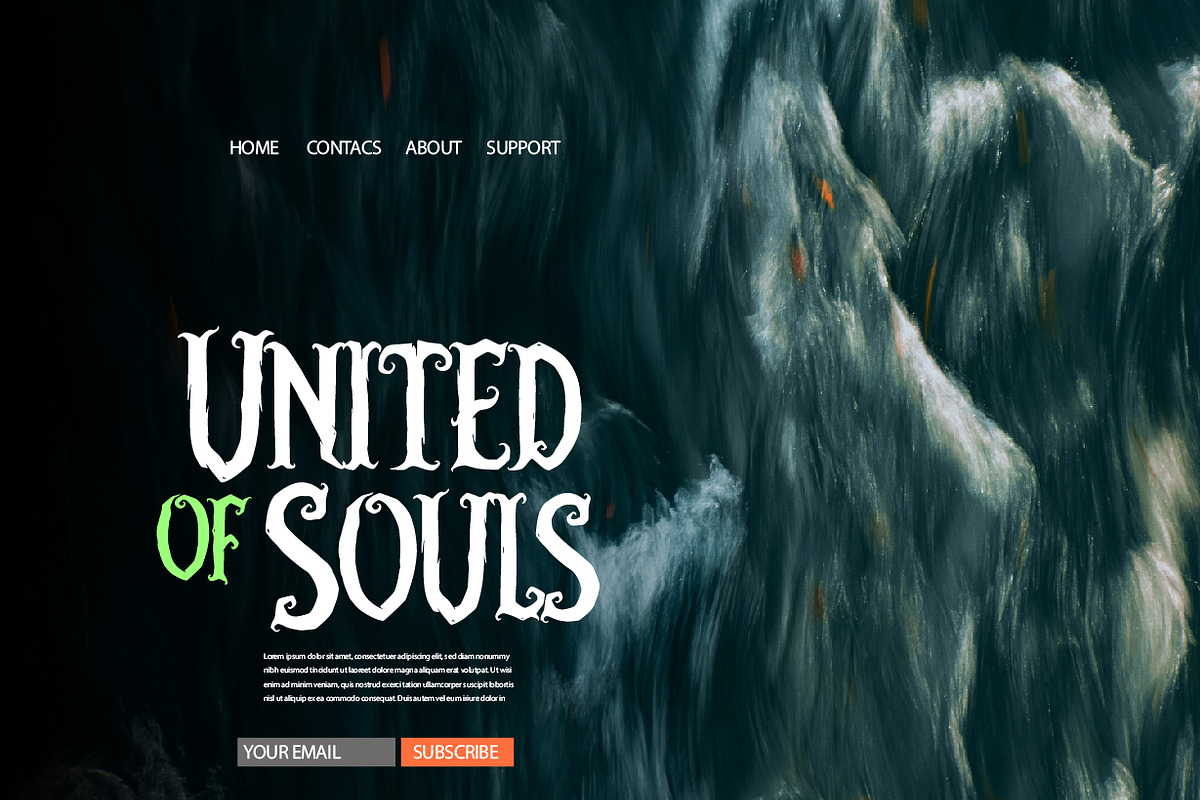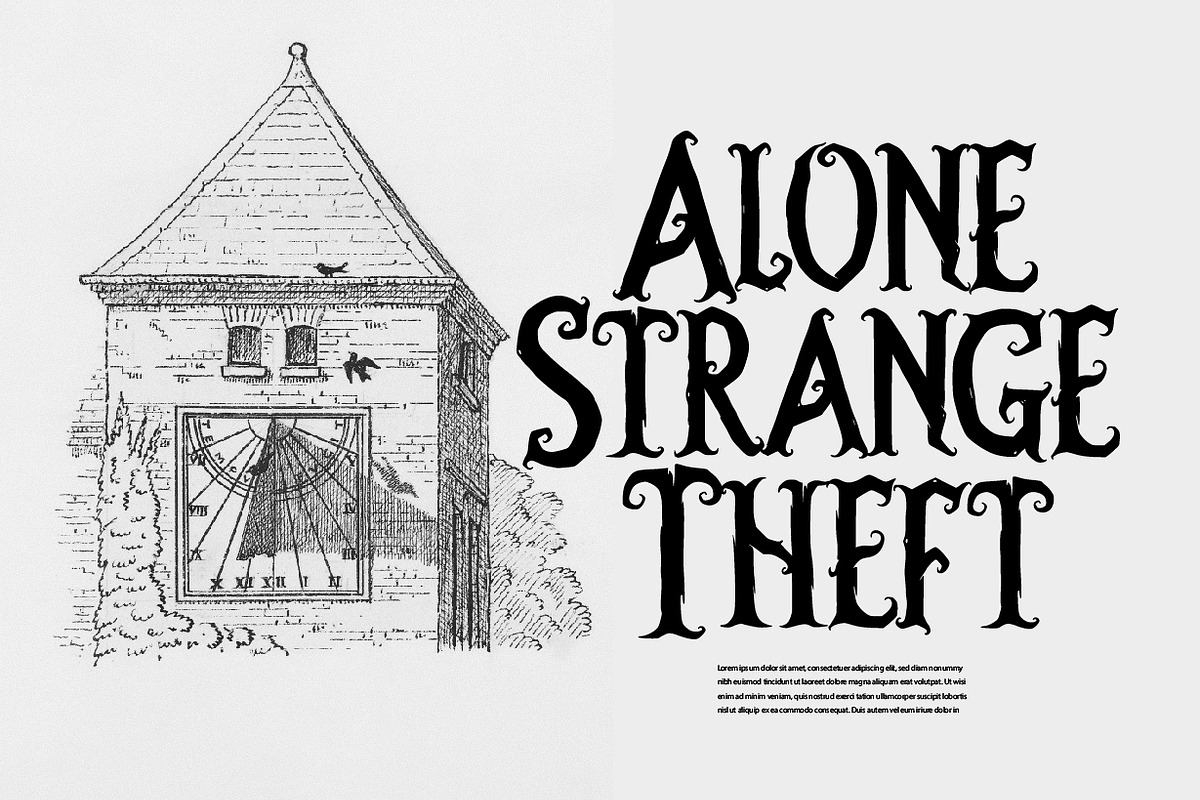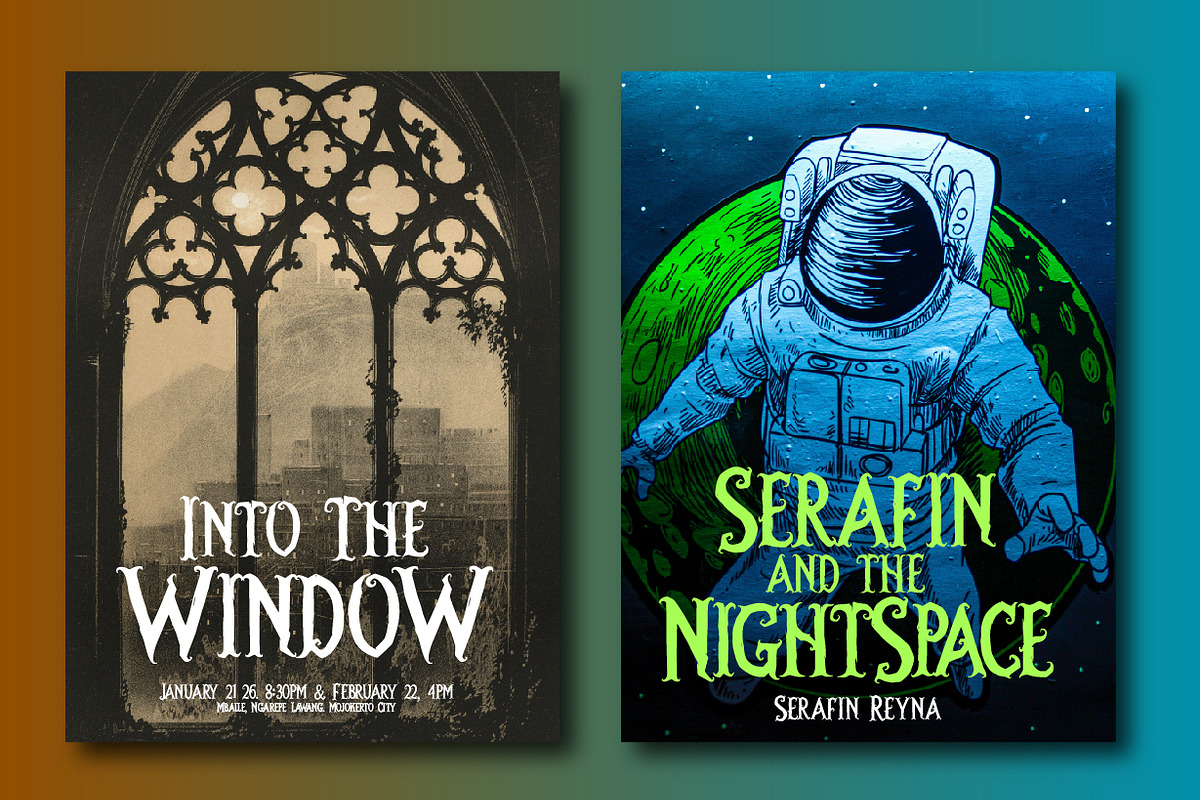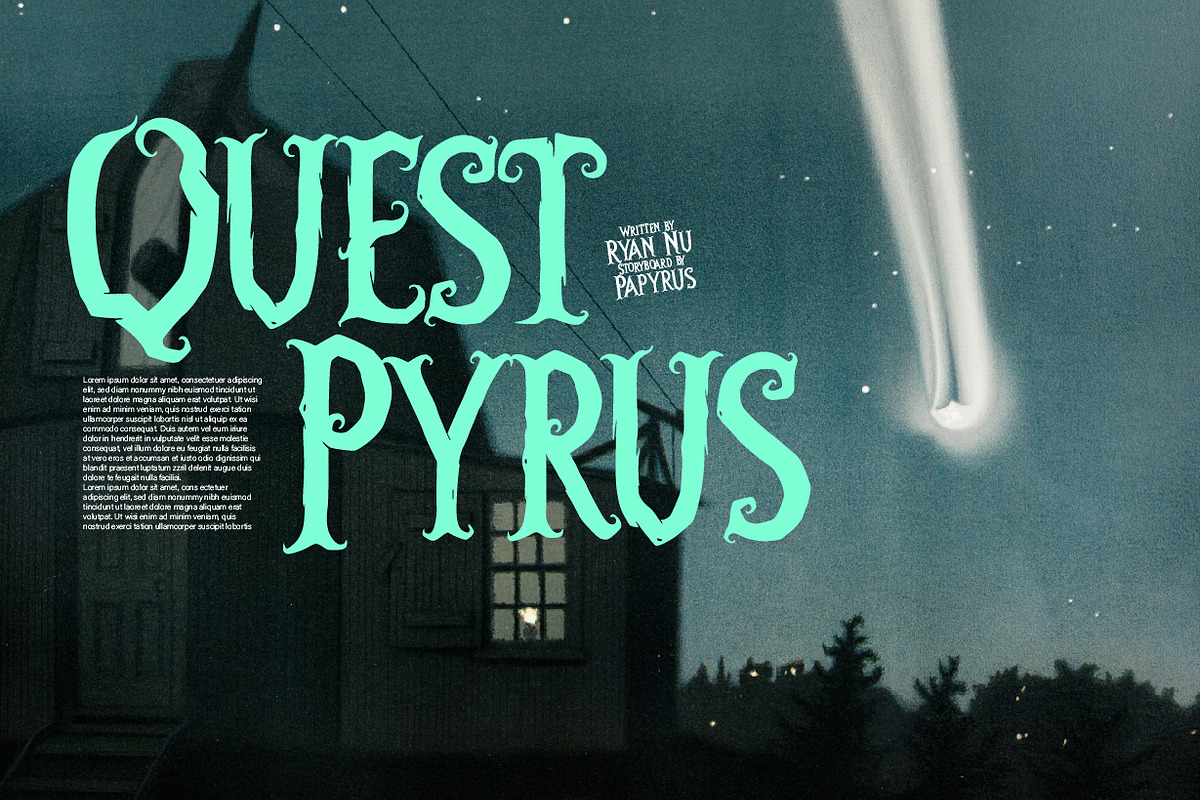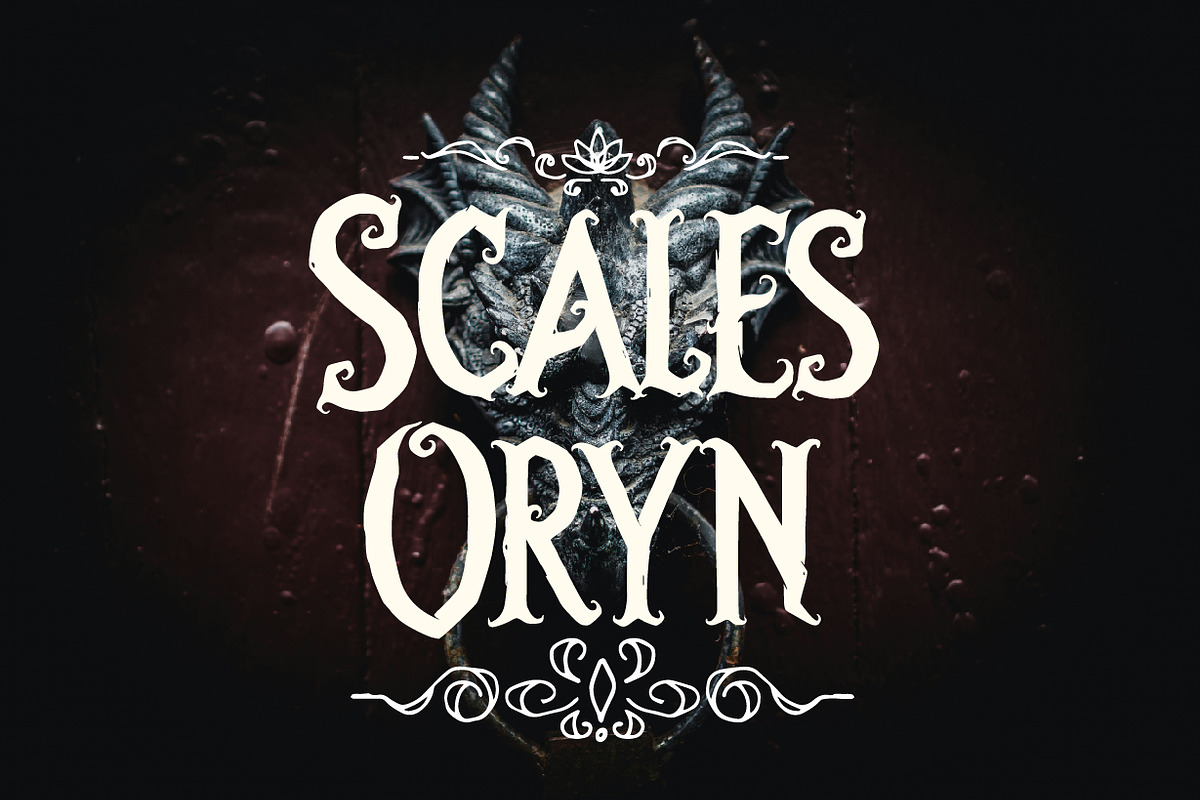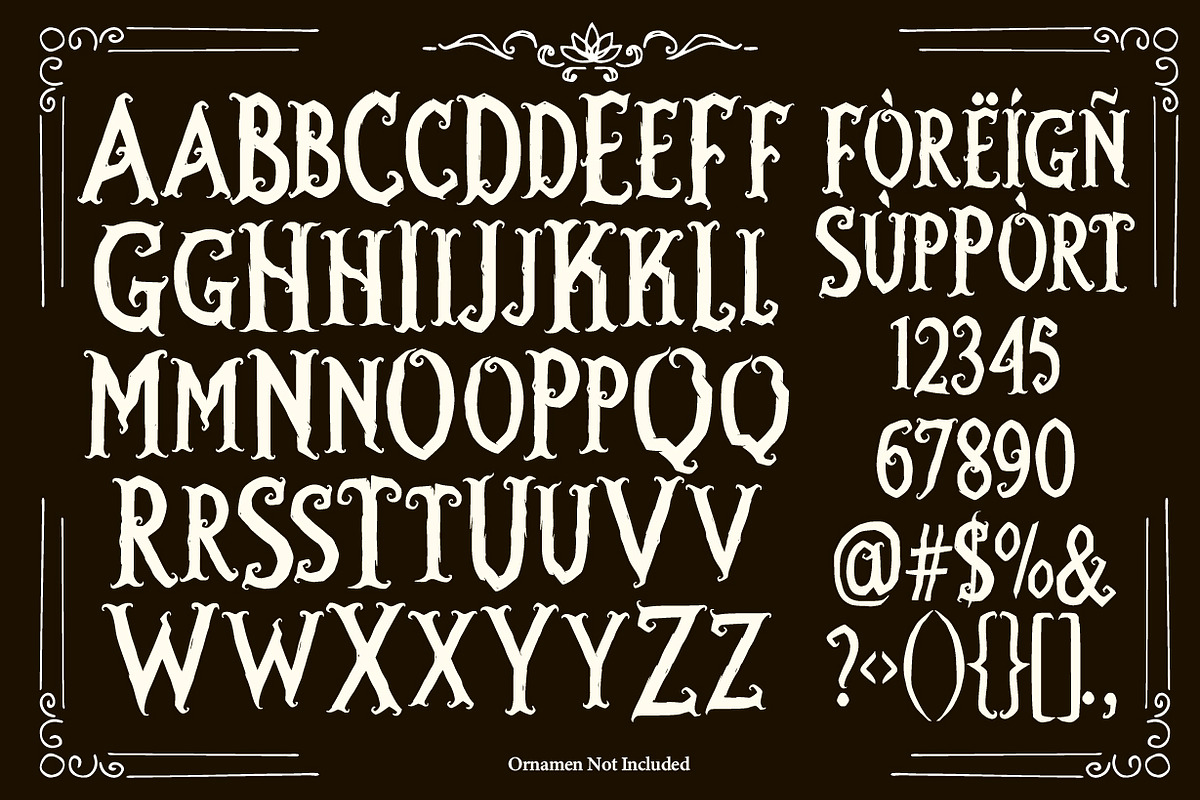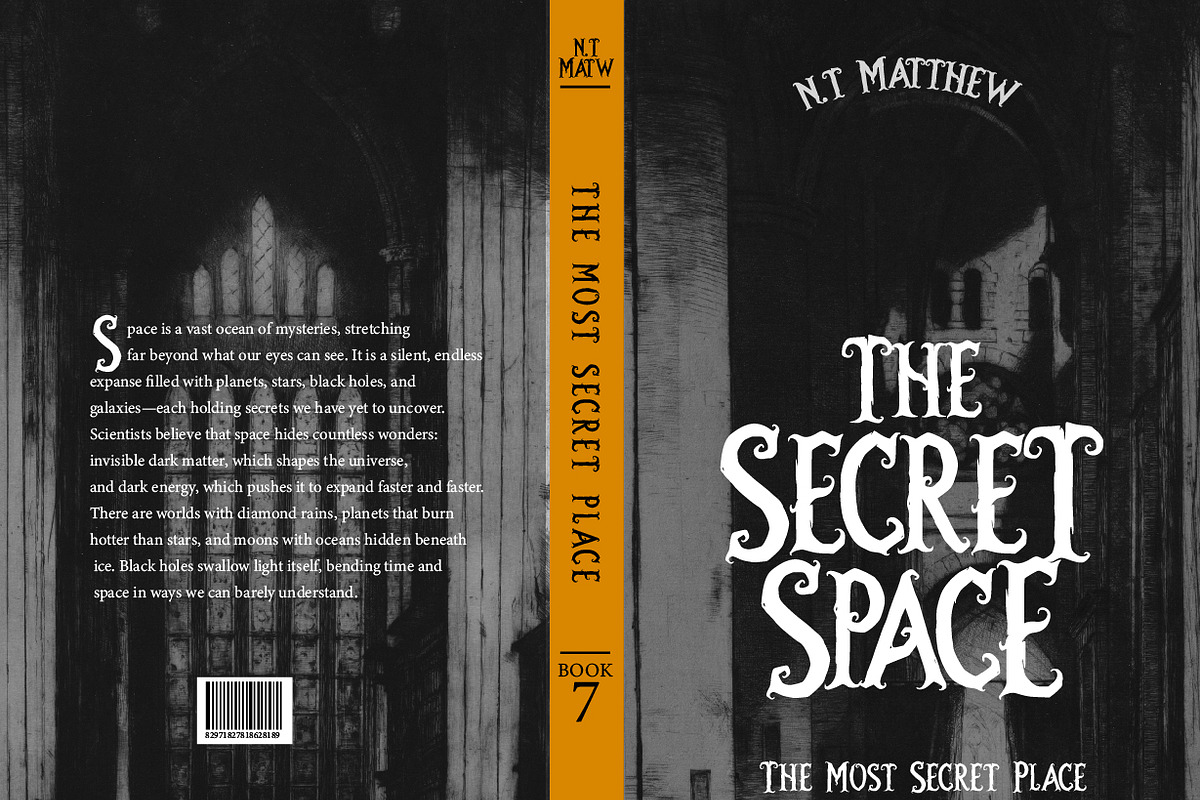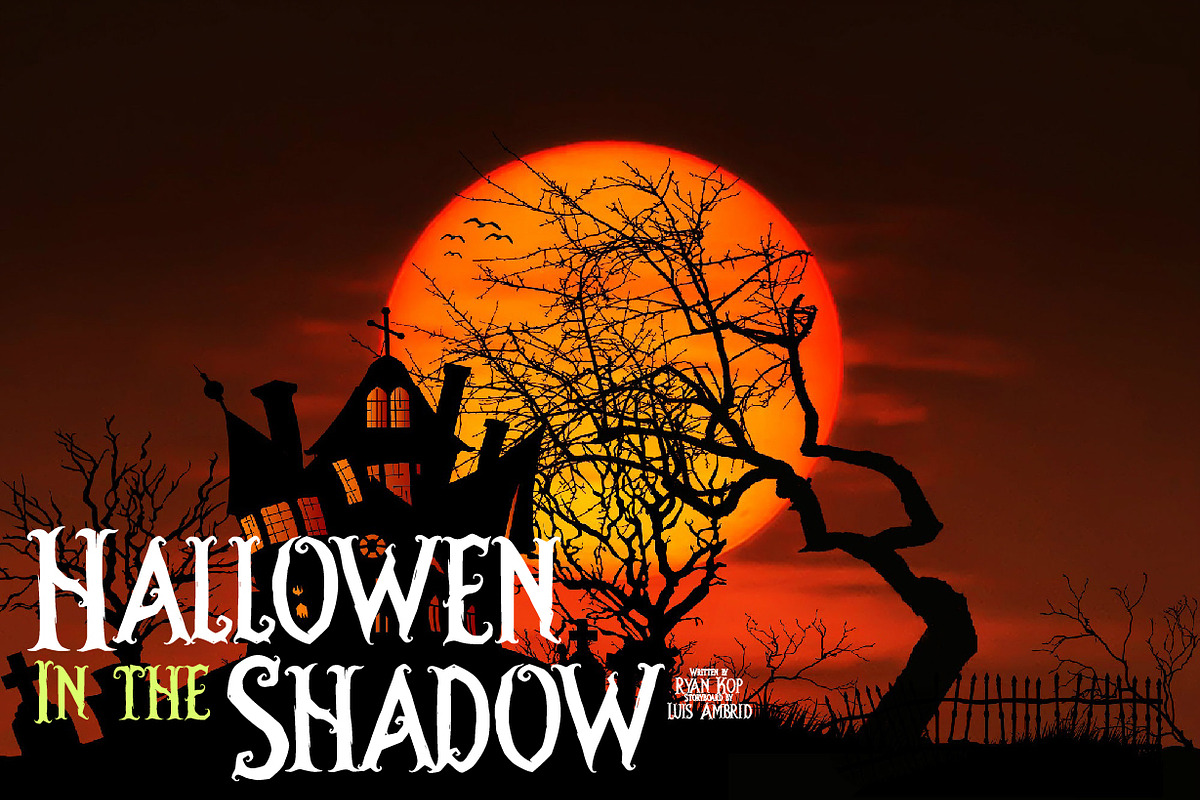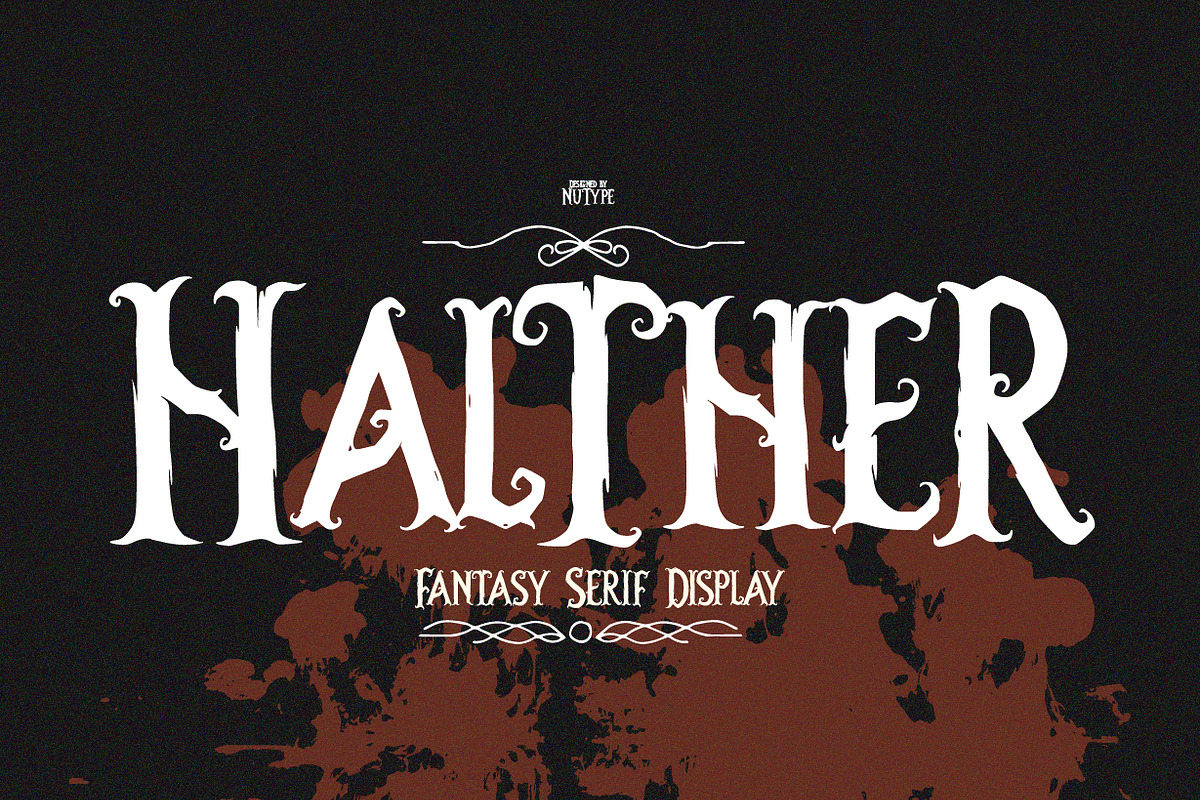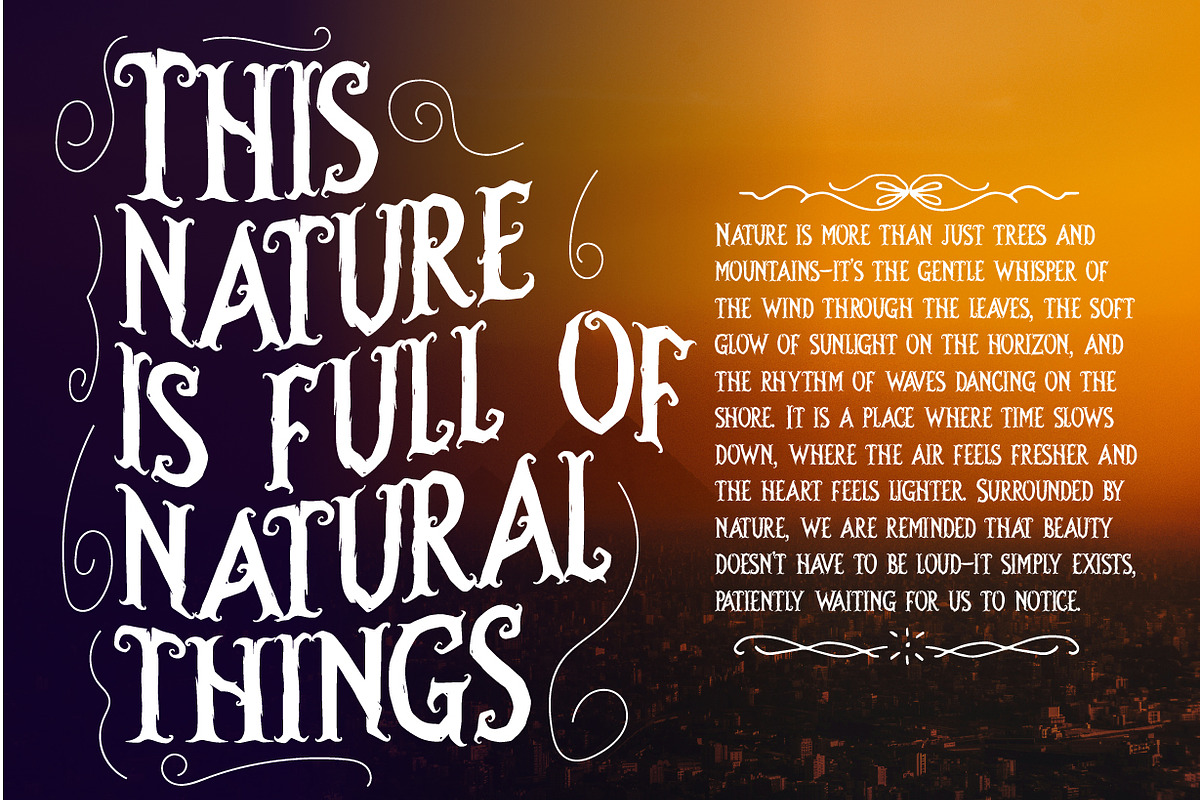
Halther - Fantasy Serif Display
Halther is a gothic–fantasy display serif font designed to bring a mysterious and dramatic touch to your projects. Perfect for horror posters, fantasy book covers, game branding, movie titles, or any design that needs a dark and magical vibe.
All Caps font (Uppercase & Small Caps version)